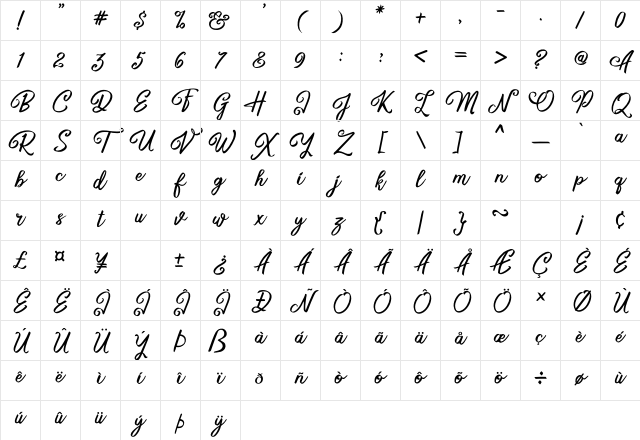
Sweets Delight is a composed and adaptable typeface that performs quietly and consistently across a wide range of design contexts. Its slender proportions lend an understated elegance to any composition.